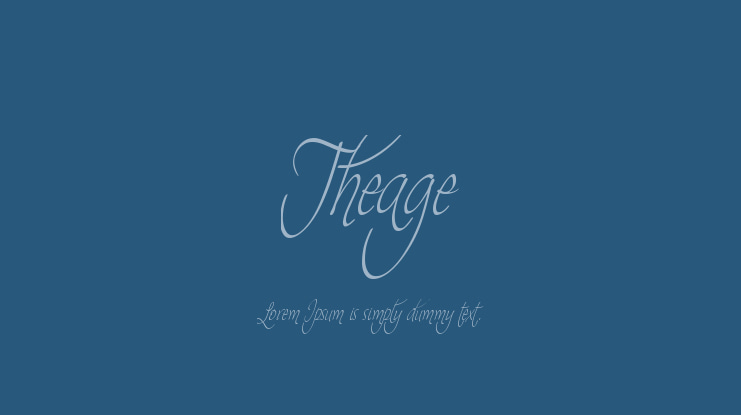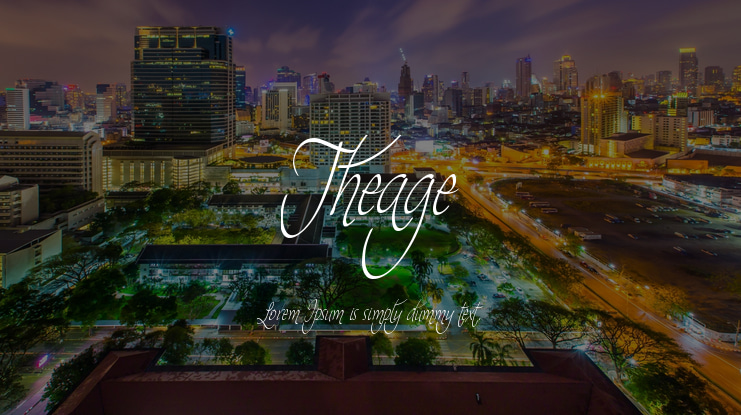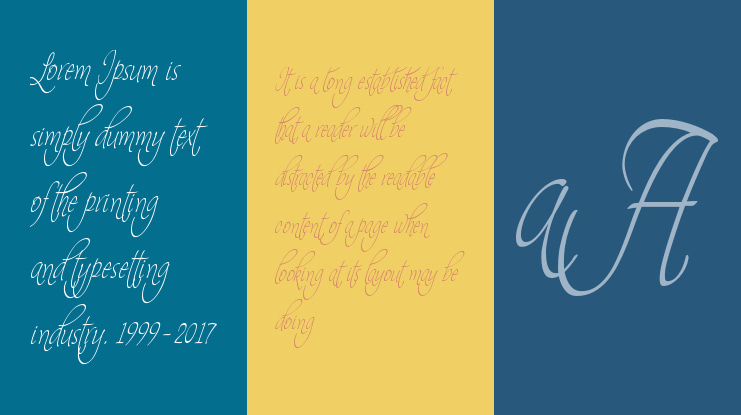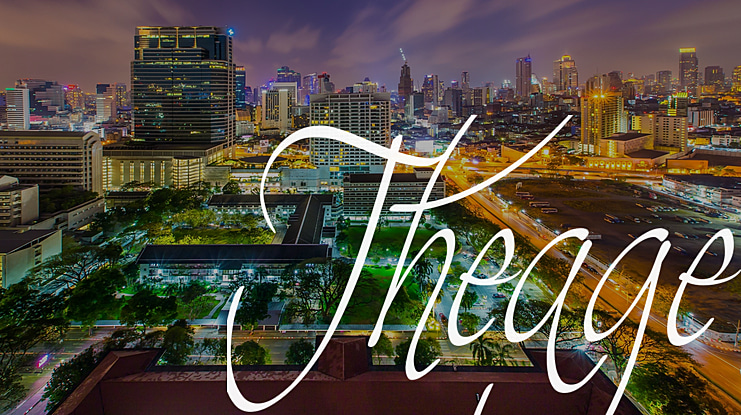
Theage Font
Introducing Theage script font! A new type of handwriting. It is completely manual, with the best feeling, you will find it very close because it is very similar to our handwriting.